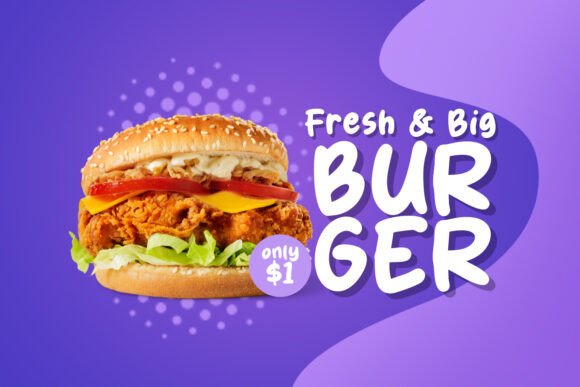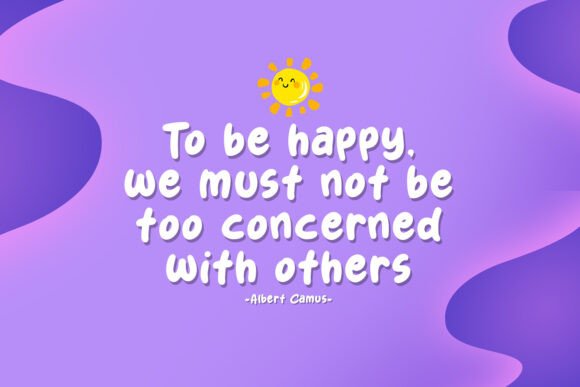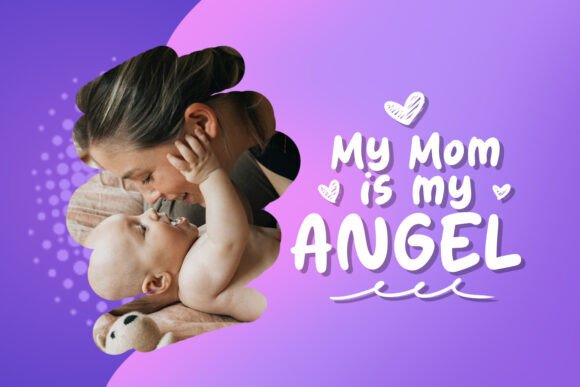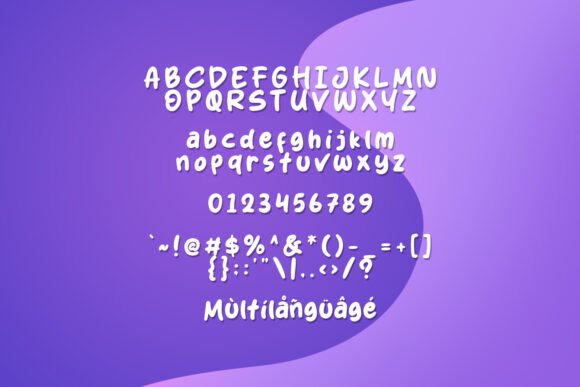
Introducing Delight Purple Font: Elevate Your Designs with a Modern and Cute Display Font
Are you a designer or crafter looking for a font that can add a touch of modernity and cuteness to your projects? Look no further than Delight Purple Font! This versatile display font is perfect for a wide range of applications, from posters and logos to magazines, book covers, banners, and more. In this article, we’ll explore the features and benefits of Delight Purple Font, and show you how it can help take your designs to the next level.
What is Delight Purple Font?
Delight Purple Font is a modern and cute display font that’s designed to make your designs stand out. Its unique and playful style makes it perfect for projects that require a bit of personality and flair. Whether you’re creating a poster, logo, or book cover, Delight Purple Font is sure to grab attention and leave a lasting impression.
Key Features of Delight Purple Font
- Modern and Cute Design: Delight Purple Font features a modern and cute design that’s perfect for designers and crafters who want to add a touch of personality to their projects.
- Versatile: This font is incredibly versatile and can be used for a wide range of projects, from posters and logos to magazines, book covers, and banners.
- Easily Customizable: Delight Purple Font is easy to customize, making it perfect for designers who want to create unique and personalized designs.
- High-Quality: This font is of high quality, ensuring that it looks great in any design or project.
Benefits of Using Delight Purple Font
So, why should you choose Delight Purple Font for your designs? Here are just a few benefits of using this amazing font:
- Adds Personality to Your Designs: Delight Purple Font adds a touch of personality and whimsy to your designs, making them stand out from the crowd.
- Increases Visibility: The unique and playful design of Delight Purple Font makes it perfect for grabbing attention and increasing visibility.
- Easy to Use: This font is easy to use and customize, making it perfect for designers of all skill levels.
- Compatible with a Wide Range of Projects: Delight Purple Font is compatible with a wide range of projects, making it a great addition to any designer’s toolkit.
How to Use Delight Purple Font